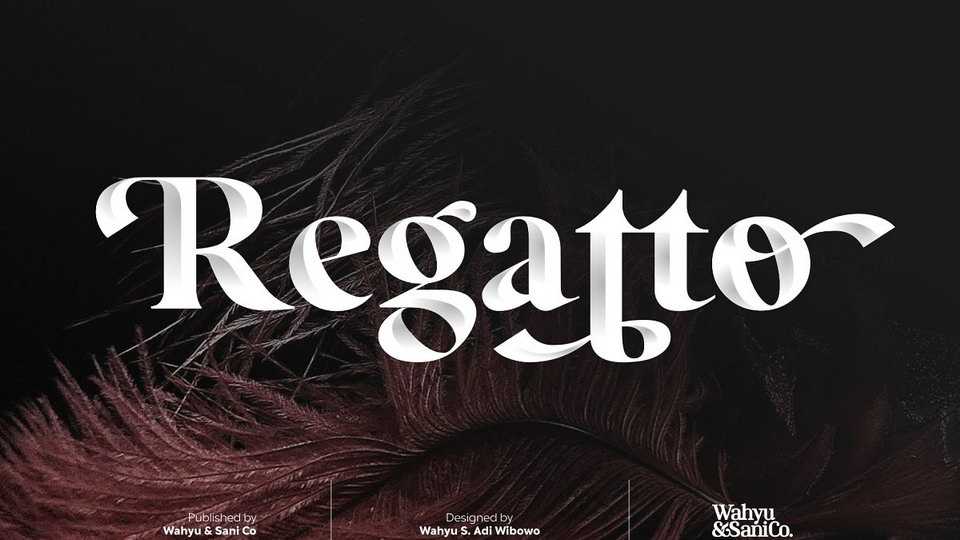
Download Regatto font, a high-contrast and bold style serif typeface, inspired by the beauty and elegance of Venetian Style. Regatto comes with a lot of alternates and ligatures with their own variants for any purposes from headline to poster.
Designer: Wahyu and Sani Co.